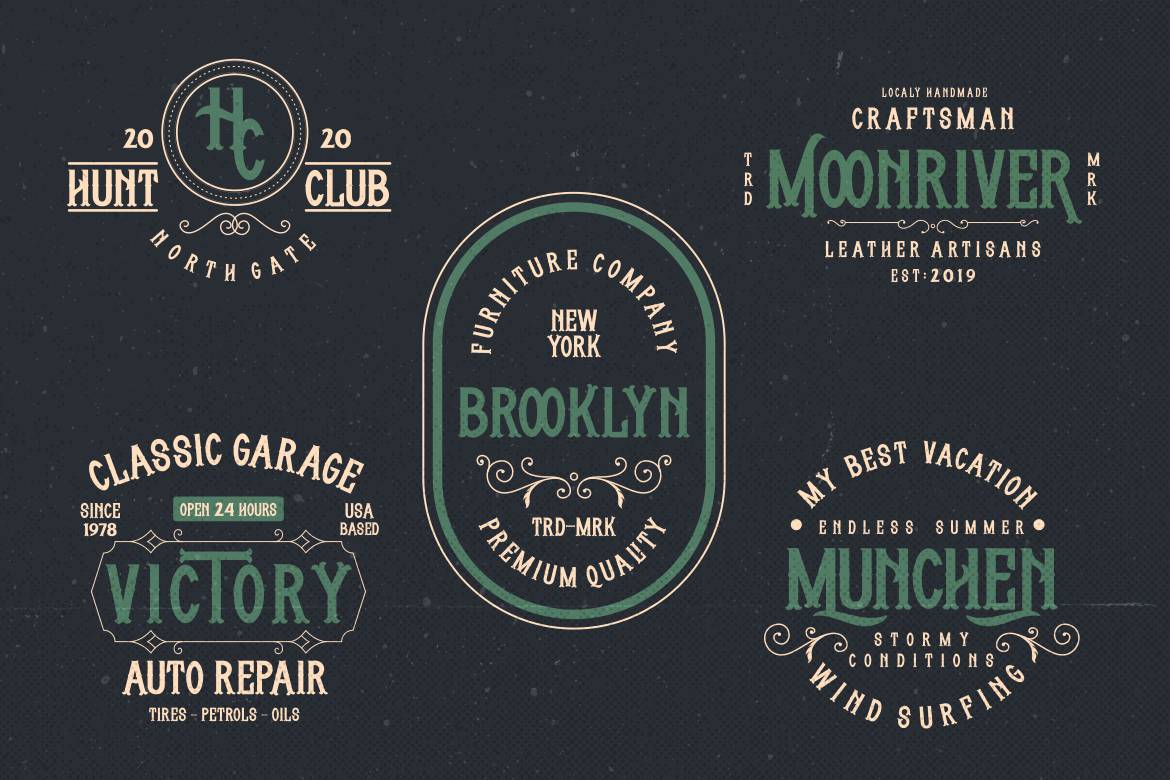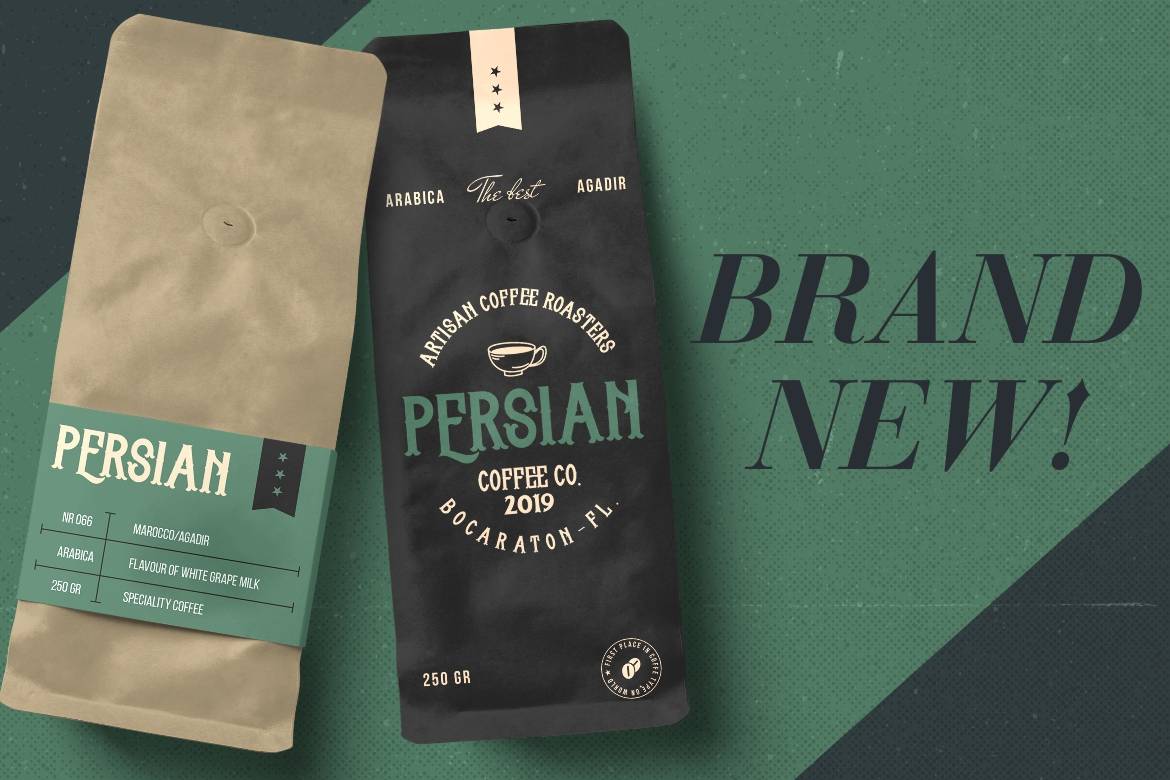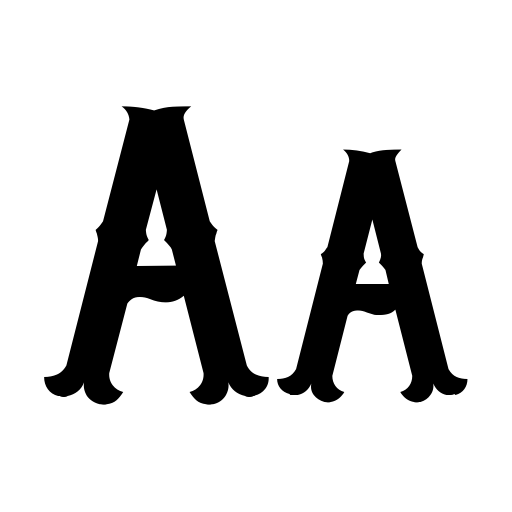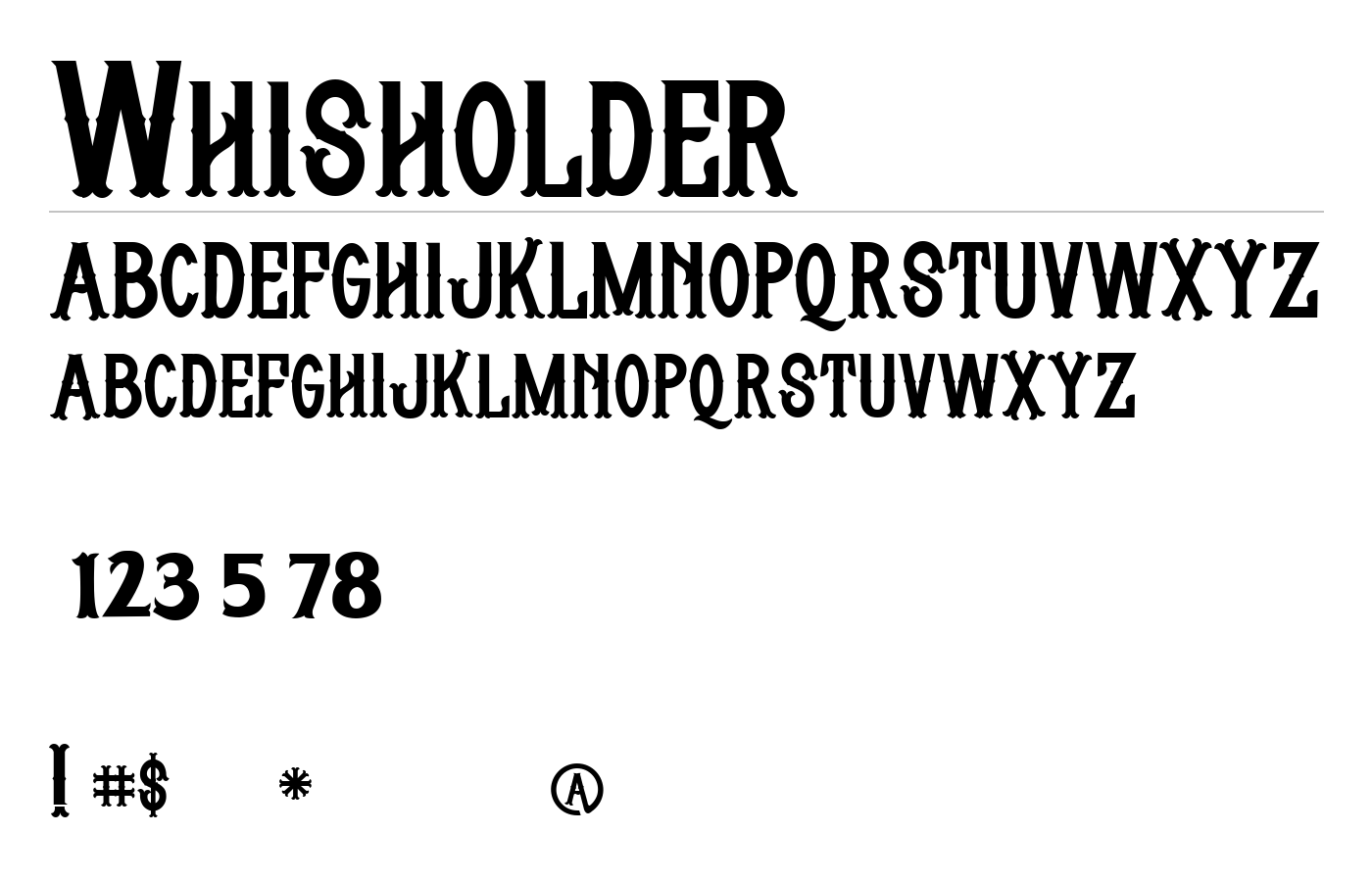
Whisholder Vintage is a bold, condensed serif font with strong contrast and decorative, bracketed serifs that evoke a classic, old-western feel. Its unique letterforms and stylized details create a vintage, timeless character ideal for logos, posters, and branding that needs a rugged yet refined touch. This font works best in headlines and display settings where its distinctive style can shine and grab attention.
Whisholder Vintage Font
About Whisholder Vintage Font